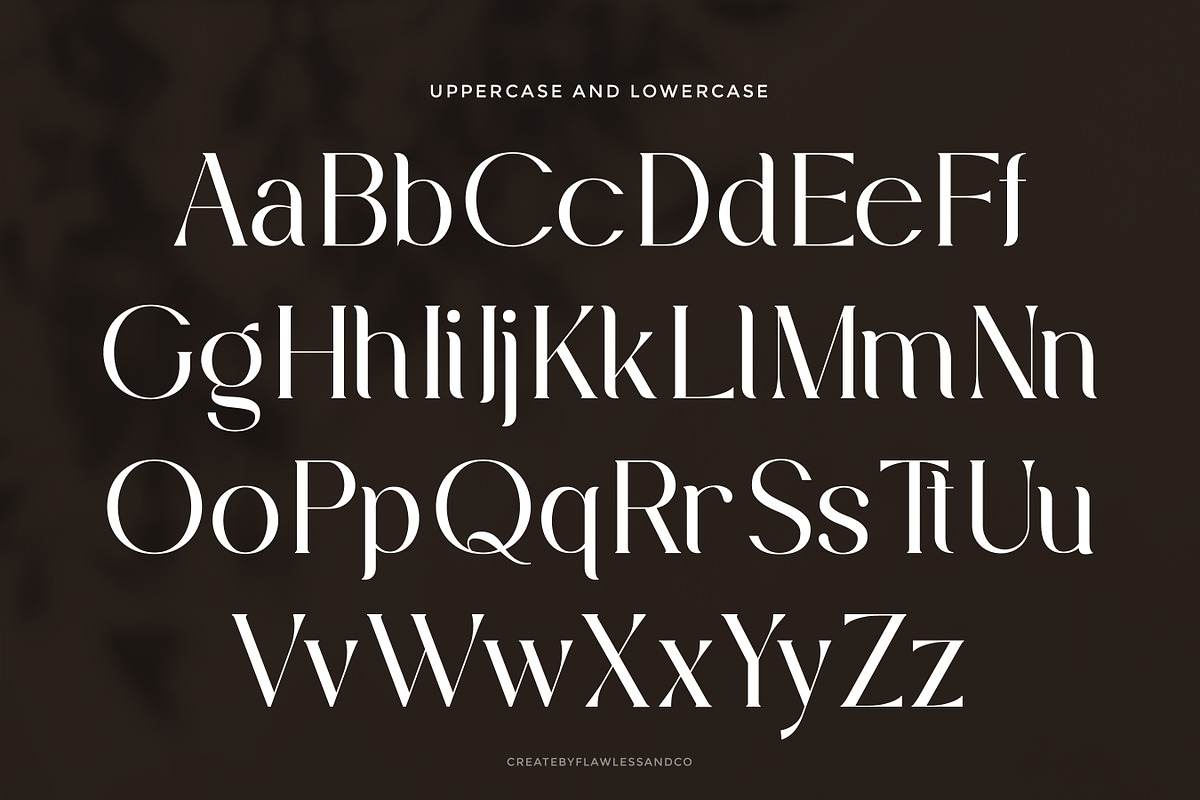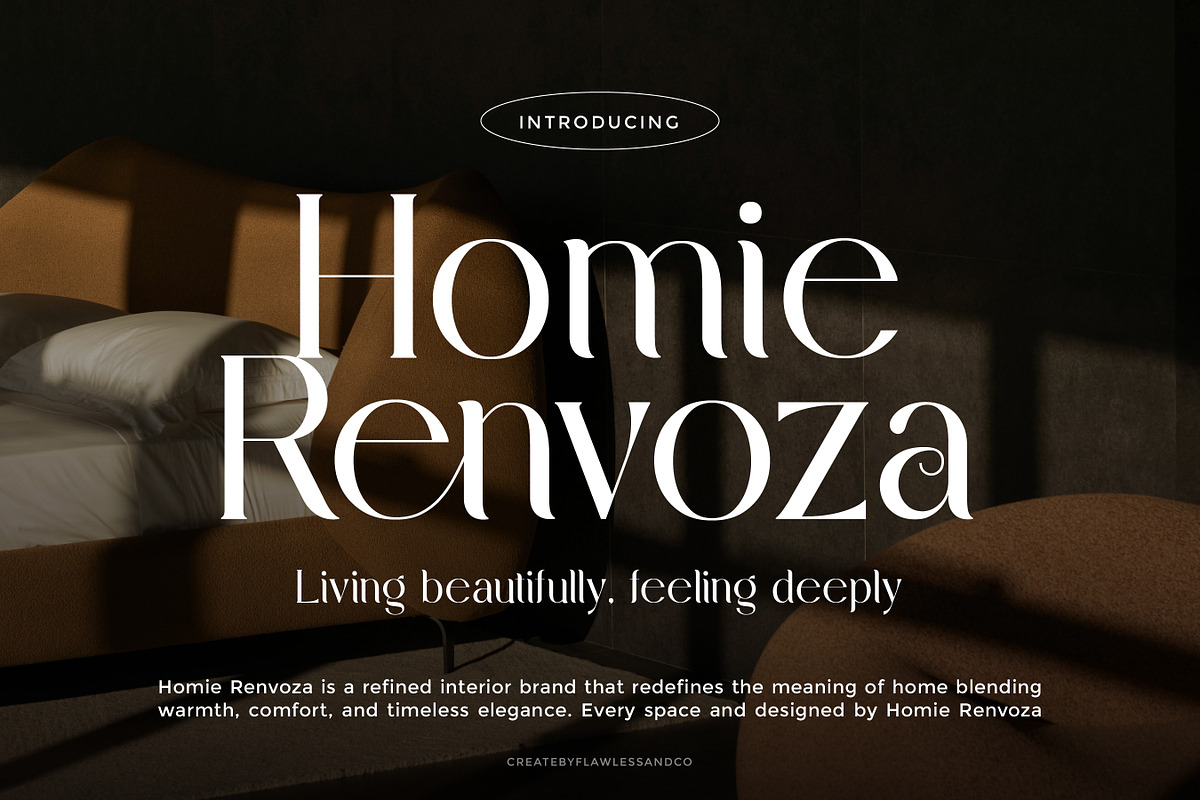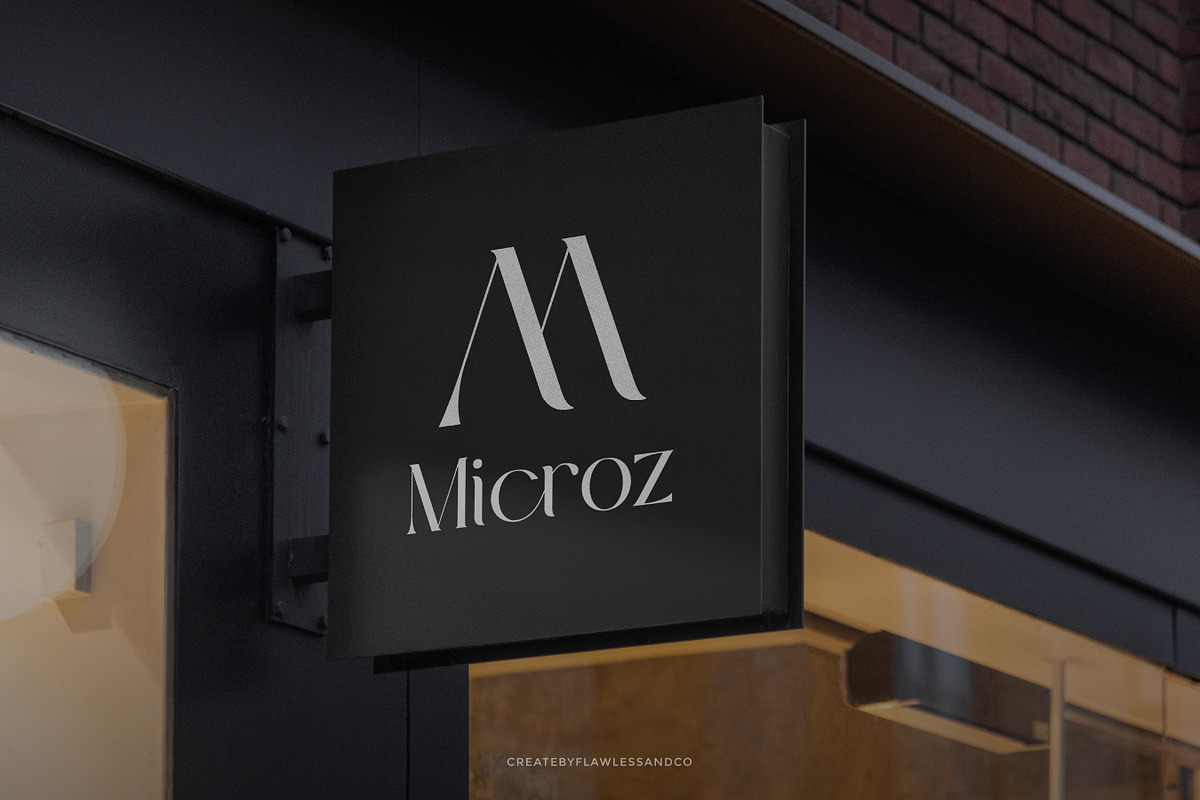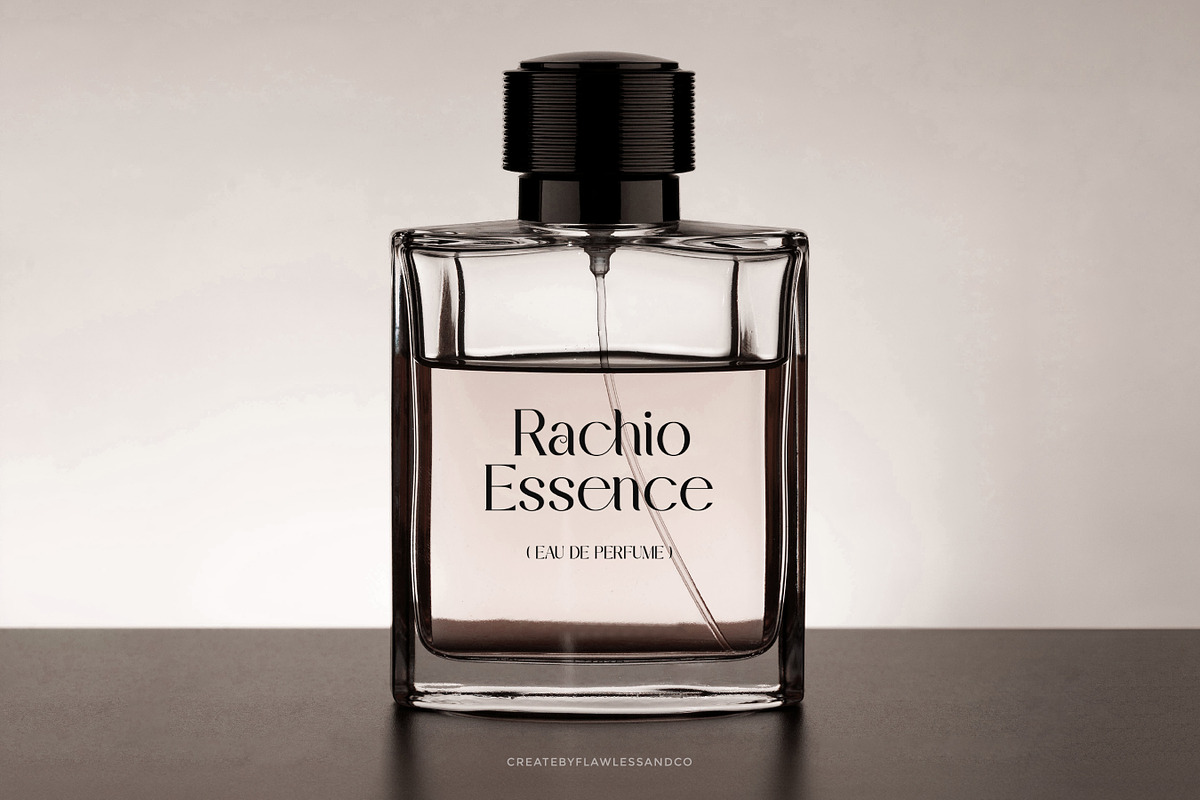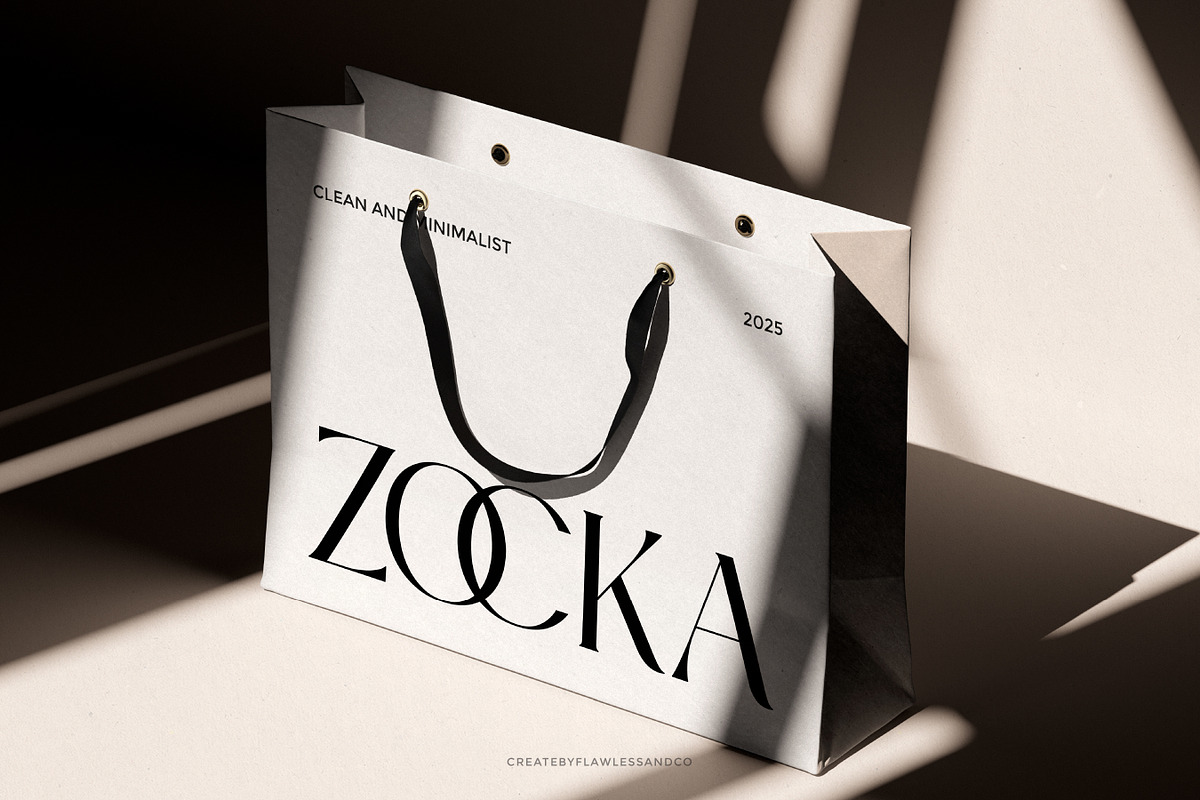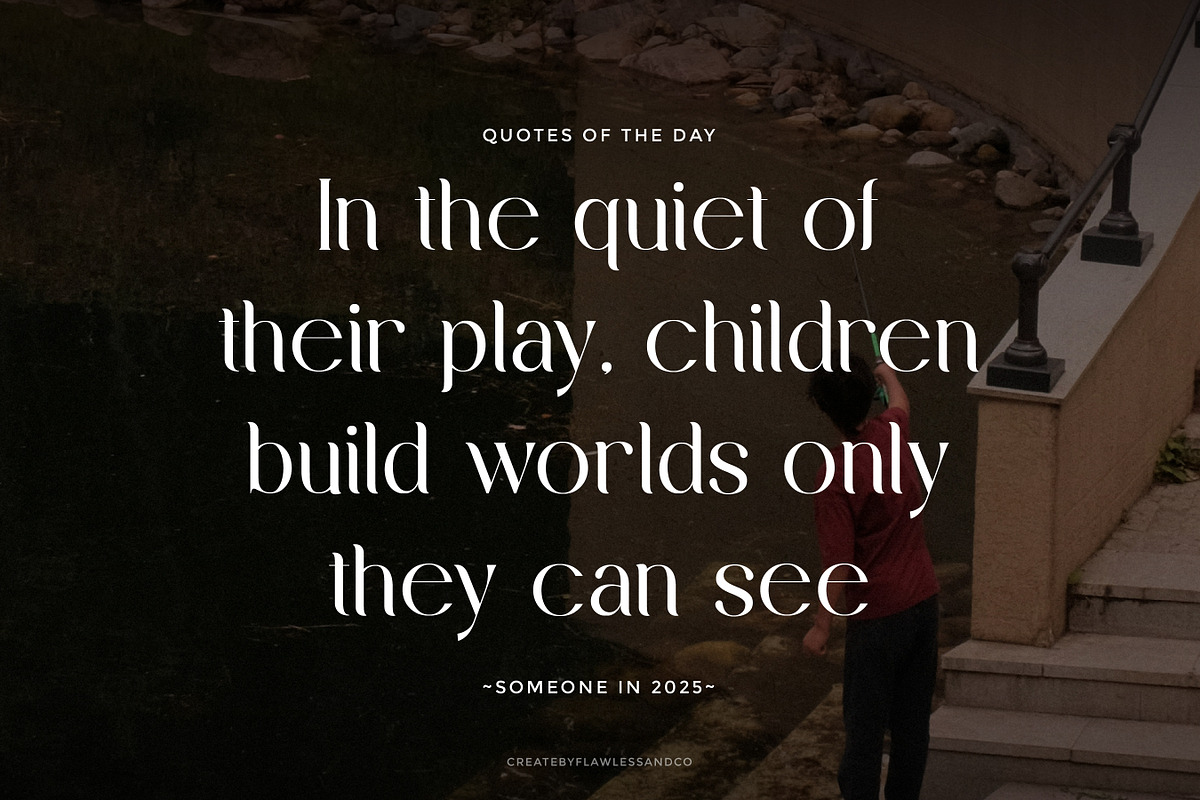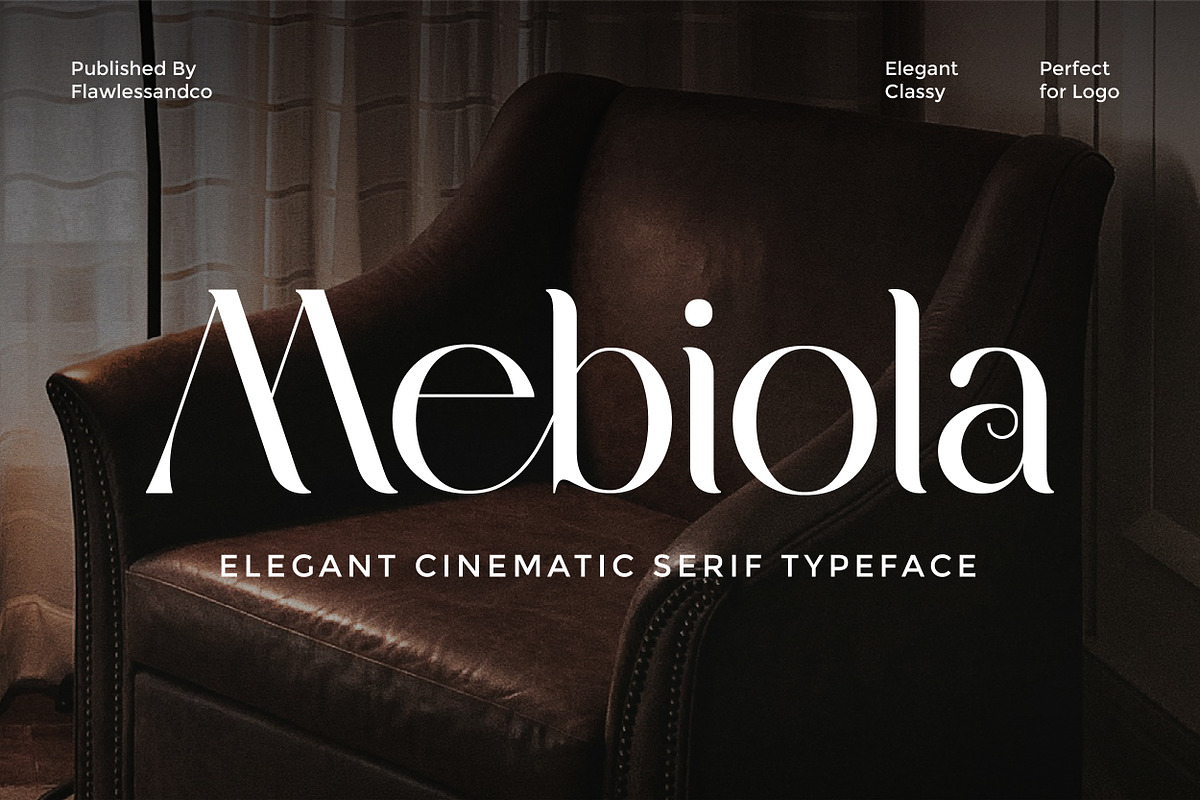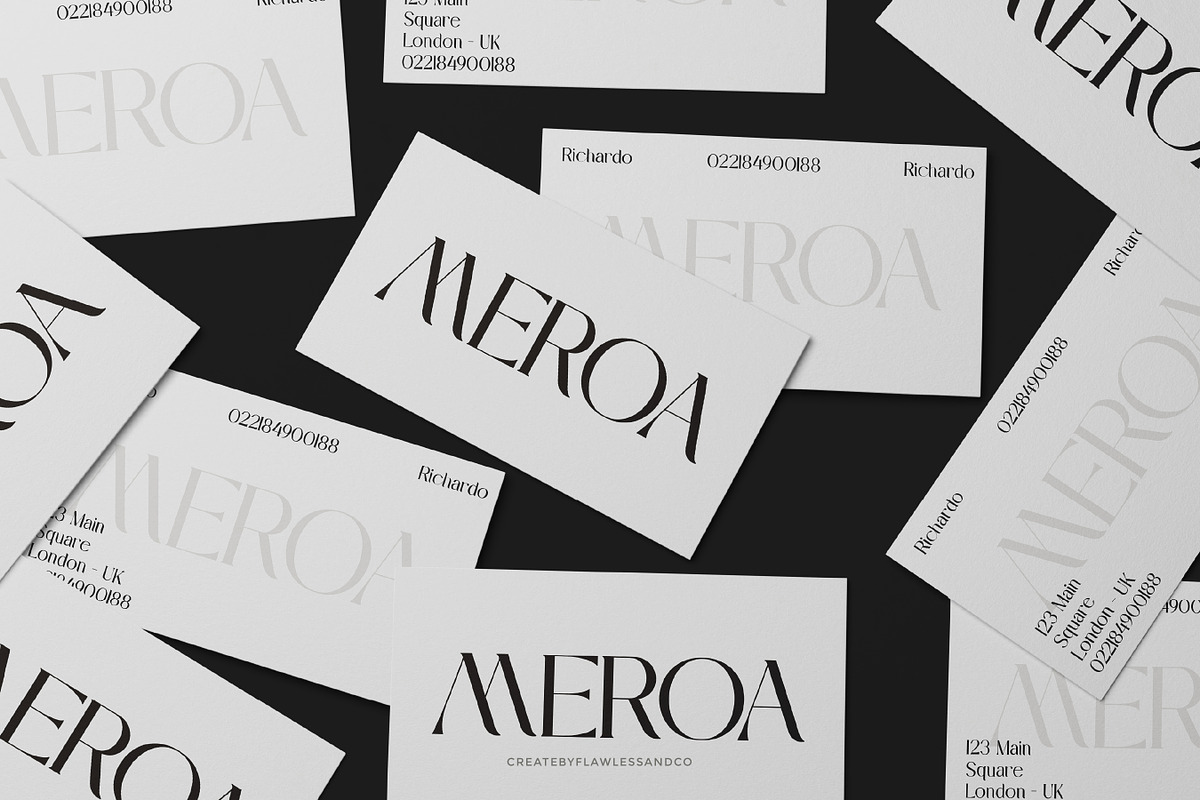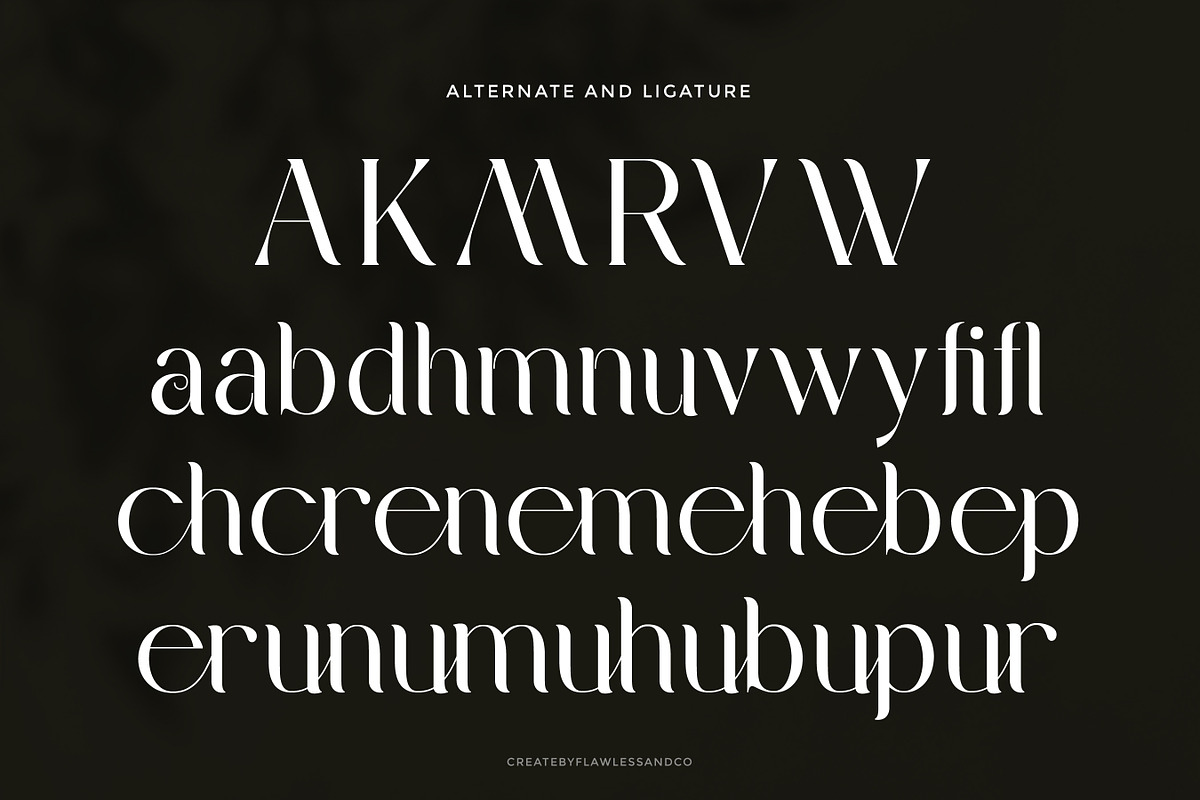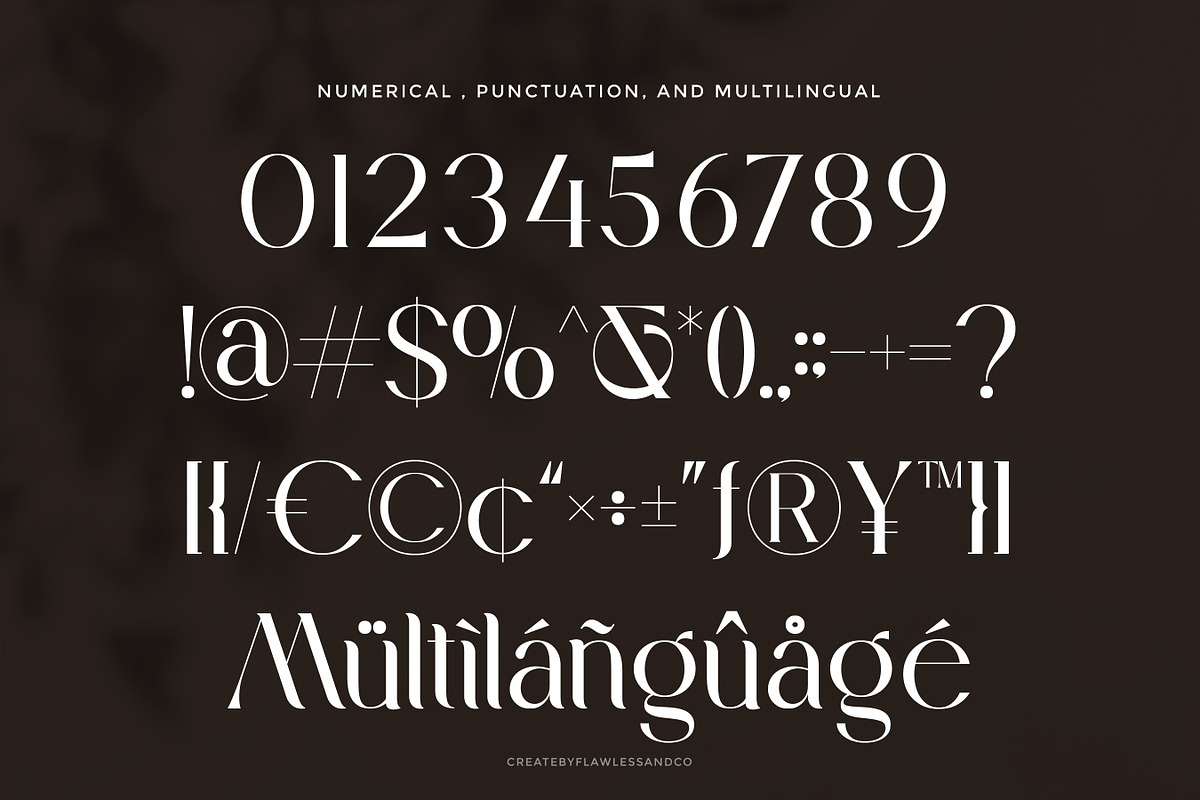
Mebiola – Elegant Cinematic Serif Fo
Mebiola – Elegant Cinematic Serif Typeface
Mebiola is an elegant cinematic serif font crafted to bring a sense of drama, luxury, and refined storytelling into every design. With its sweeping curves, high-contrast strokes, and artfully sculpted serifs, Mebiola delivers a visual experience that feels both timeless and modern—perfect for brands that want to leave a lasting impression. Whether used for logos, editorial layouts, posters, or high-end packaging, Mebiola instantly elevates the mood and adds an iconic character to your work.
Who Should Use Mebiola?
Mebiola is the perfect choice for designers and creators who want their work to feel elevated, cinematic, and visually captivating. This font is ideal for:
- Brand Designers who need a sophisticated serif to build luxury identities, premium logos, and memorable brand visuals.
- Editorial & Magazine Designers who want dramatic headlines, refined layouts, and elegant storytelling through typography.
- Fashion & Beauty Creatives seeking a classy serif that reflects high-end aesthetics for campaigns, lookbooks, and packaging.
A Must-Have Font for “Brand and Logo” Creators and Designers
Mebiola is an essential typeface for anyone crafting premium brand identities and standout logos. With its graceful curves, cinematic presence, and refined serif details, this font empowers designers to create visuals that feel luxurious, memorable, and instantly recognizable.
Why Choose Mebiola for “Brand and Logo” Projects?
Mebiola brings a unique cinematic elegance that instantly elevates any branding work. Its refined serif structure creates a perfect balance between luxury and modern sophistication, making every word feel intentional and high-value. The smooth curves, artistic letterforms, and distinctive character shapes help your brand stand out with a signature identity that feels exclusive and timeless.
Suitable For
Mebiola is an excellent choice for a wide range of design needs that require an elegant, artistic, and strong visual character, such as:
- Branding & Logo Design – delivers a premium and refined identity.
- Luxury Packaging – perfect for perfumes, skincare, cosmetics, and exclusive products.
- Magazine & Editorial Titles – brings a cinematic and sophisticated appearance.
- High-End Advertising – ideal for fashion, lifestyle, and luxury brand campaigns.
- Wedding & Event Designs – offers an elegant look with timeless beauty.
- Posters & Cinematic Visuals – adds dramatic and artistic visual impact.
- Website Headers & UI Branding – modern, clean, and professional.
- Social Media Aesthetic Content – perfect for premium feeds and visual storytelling.